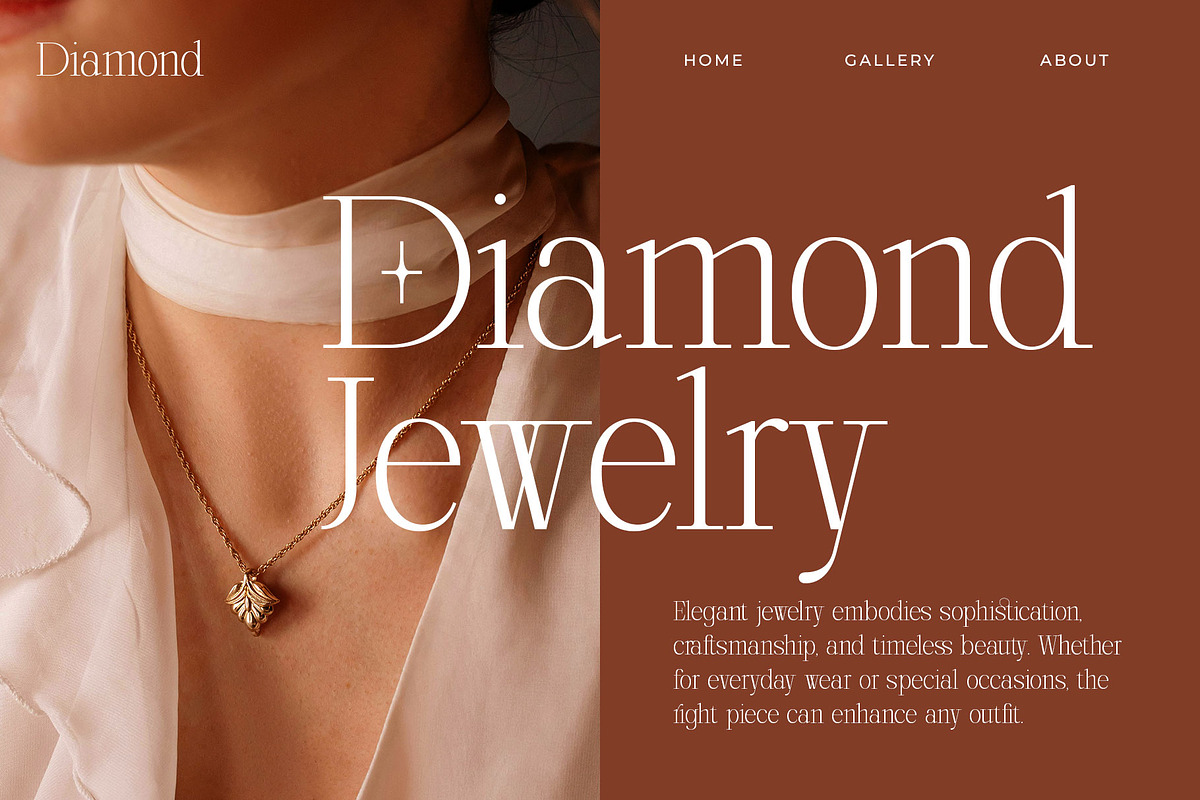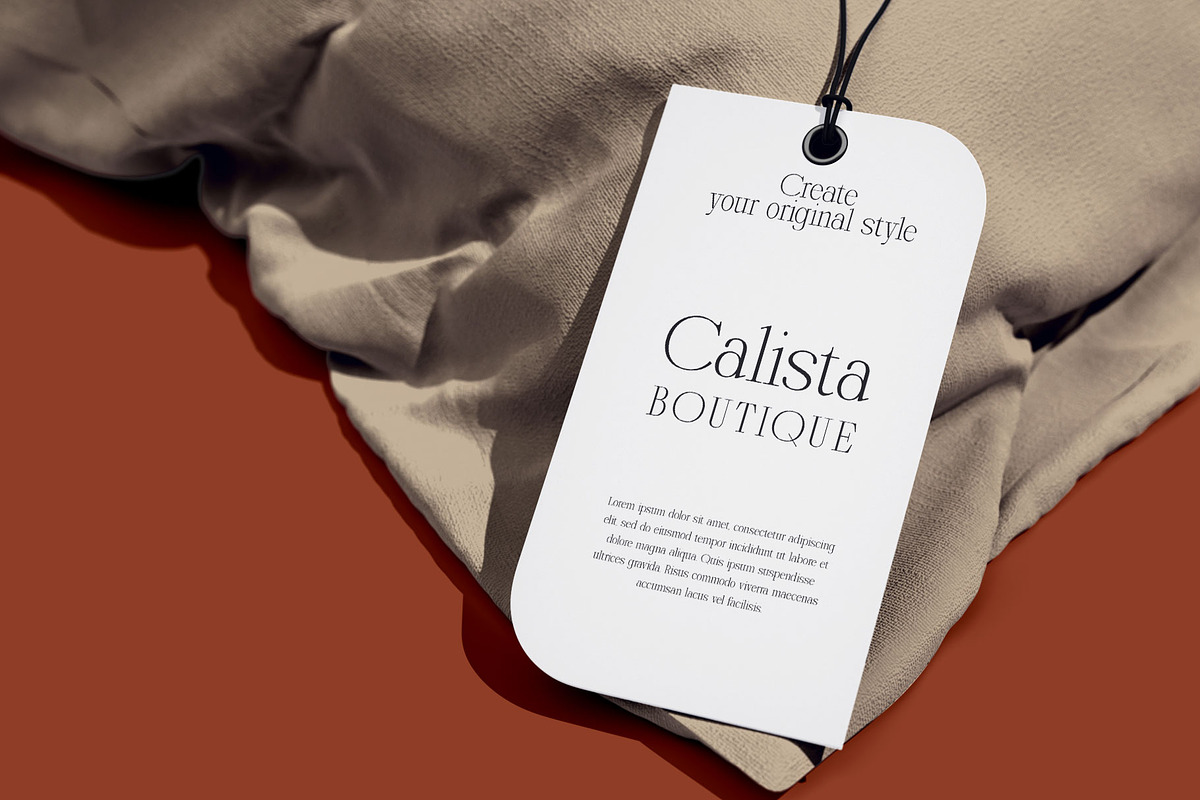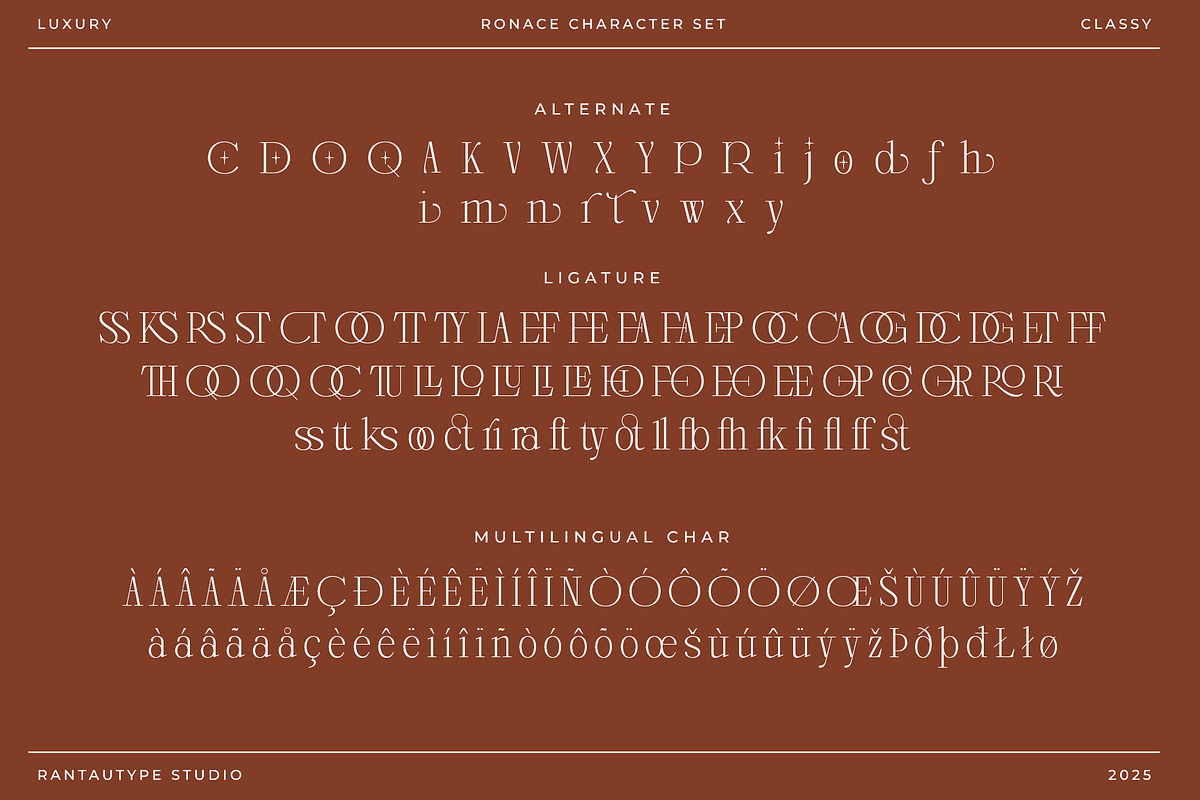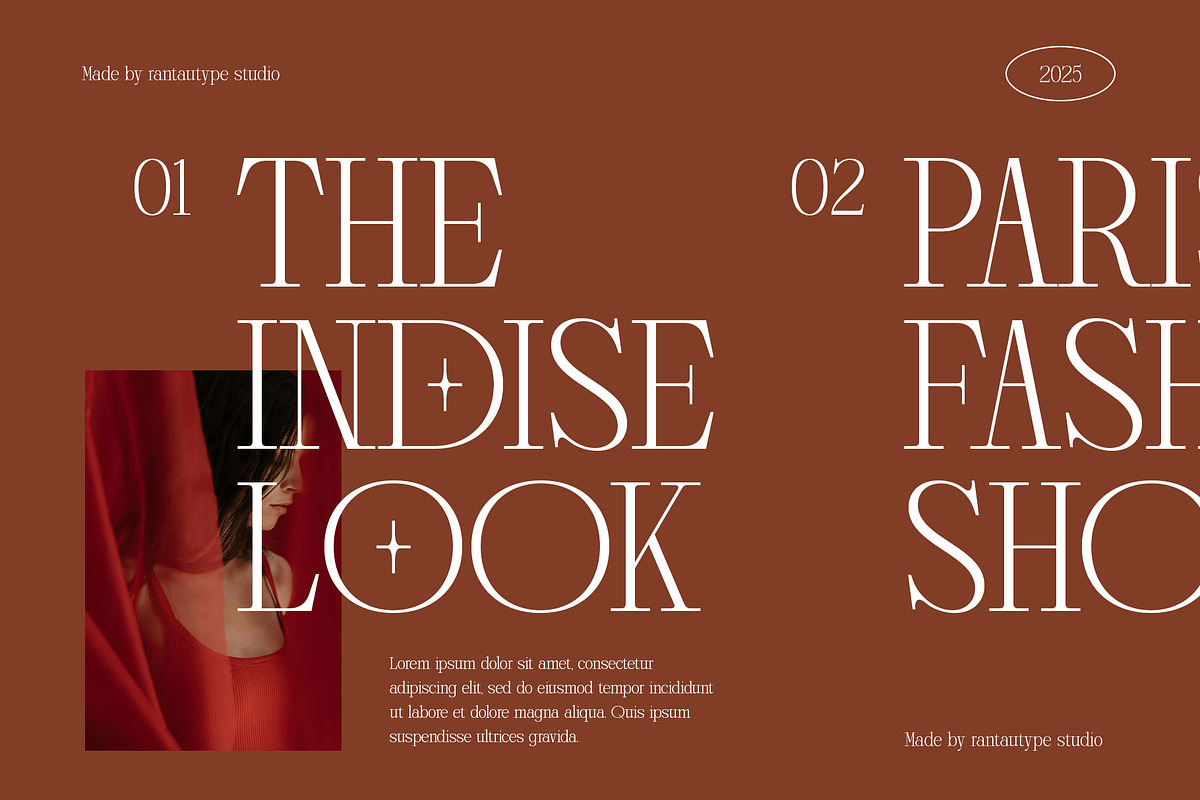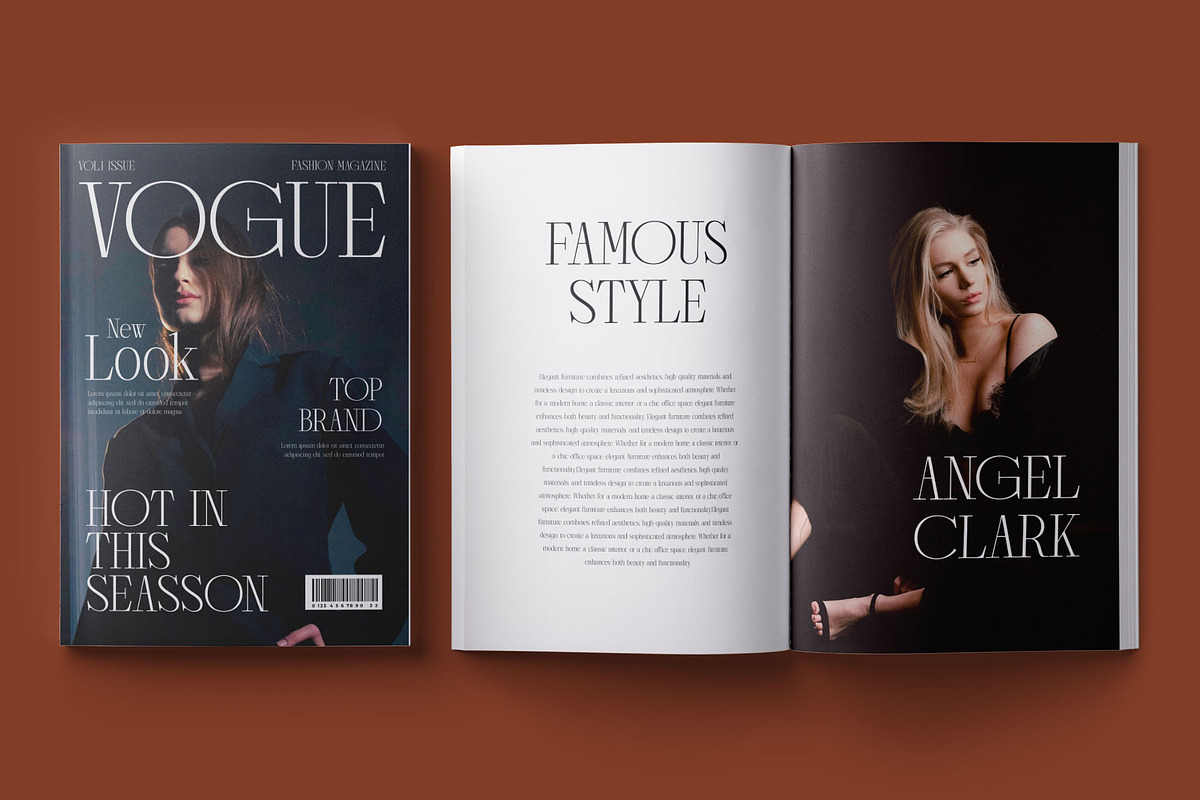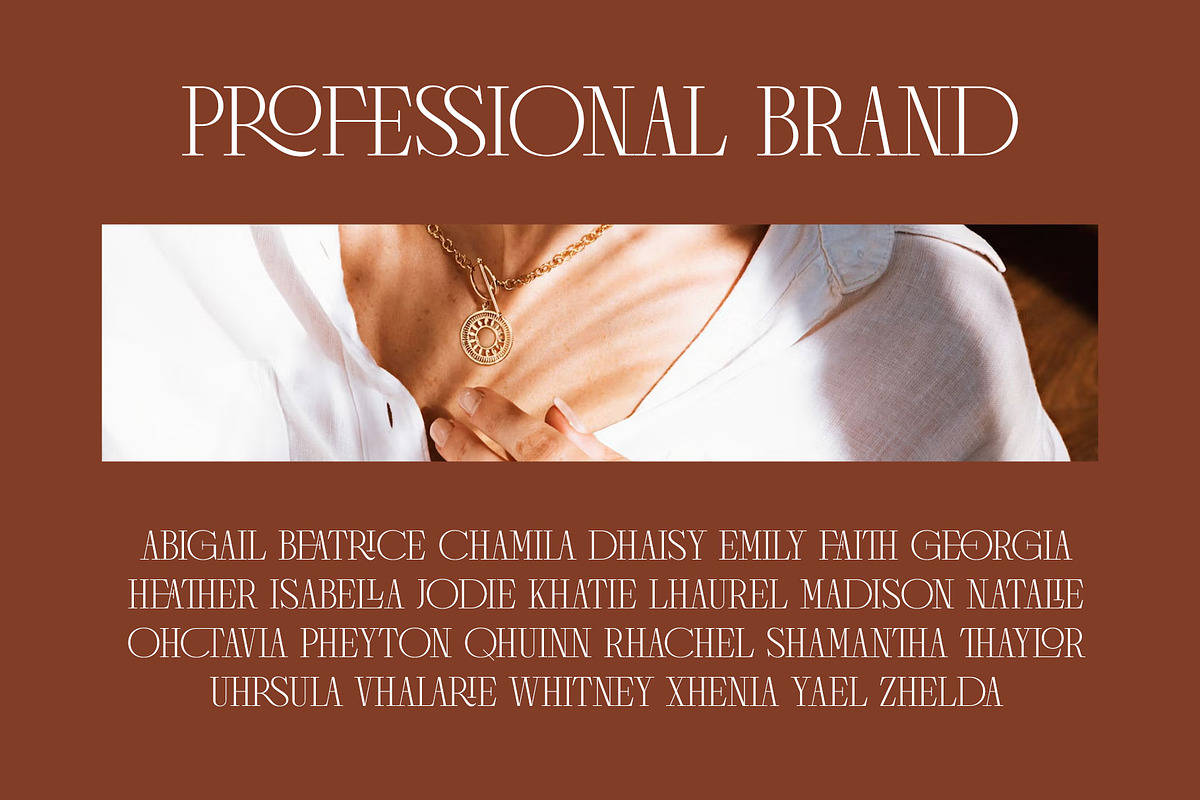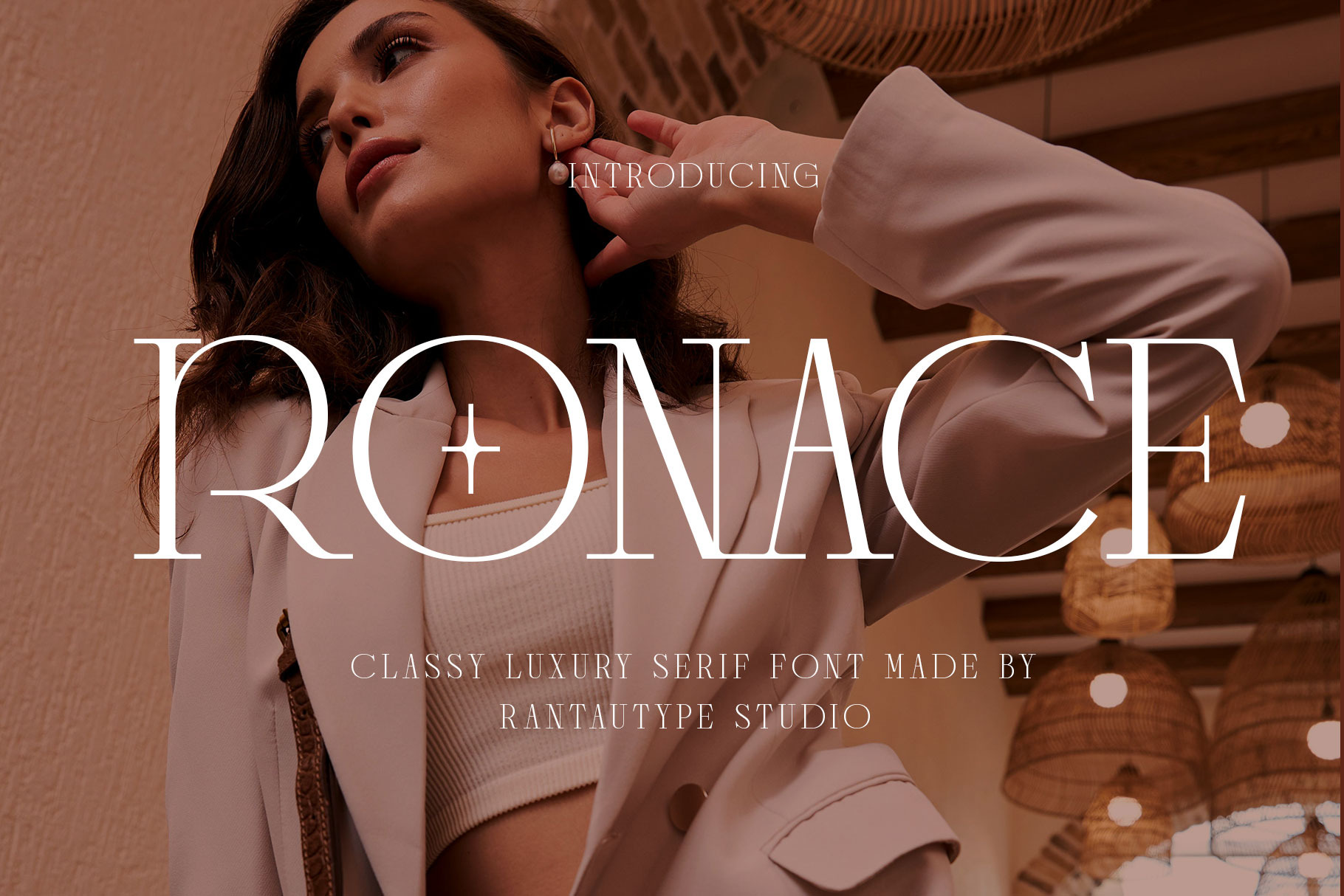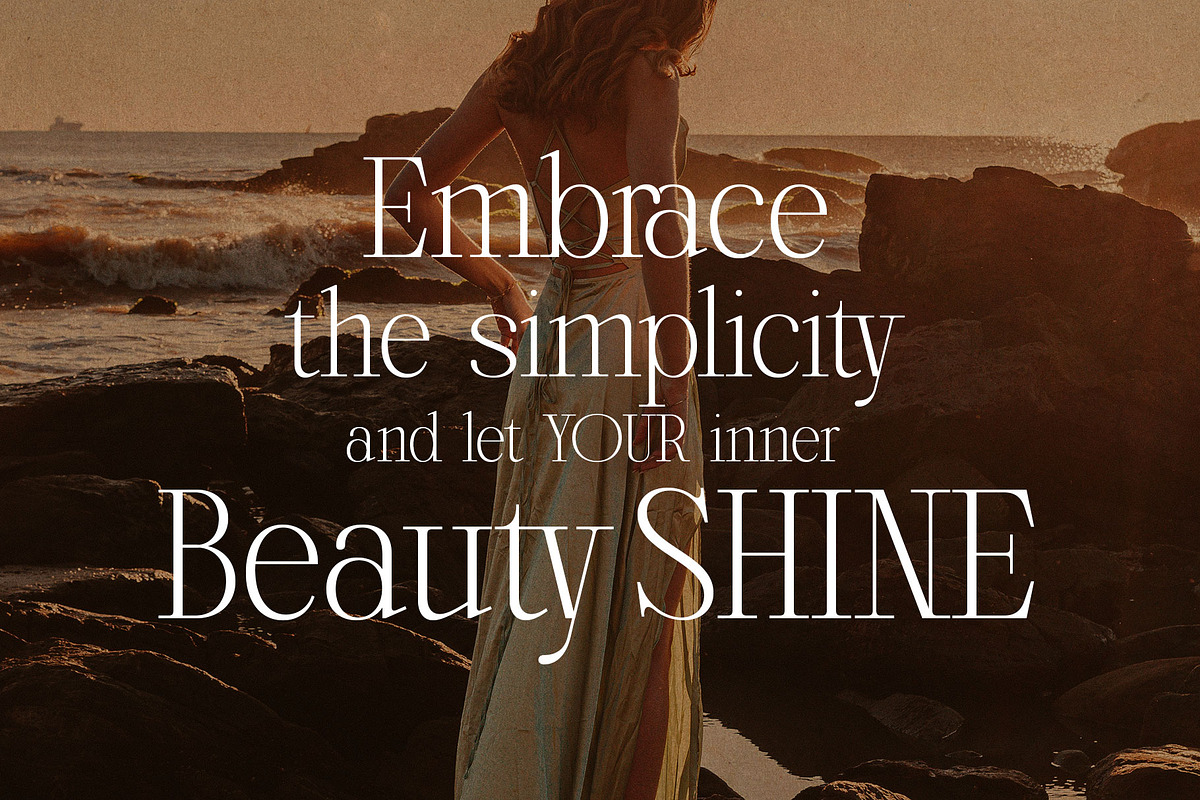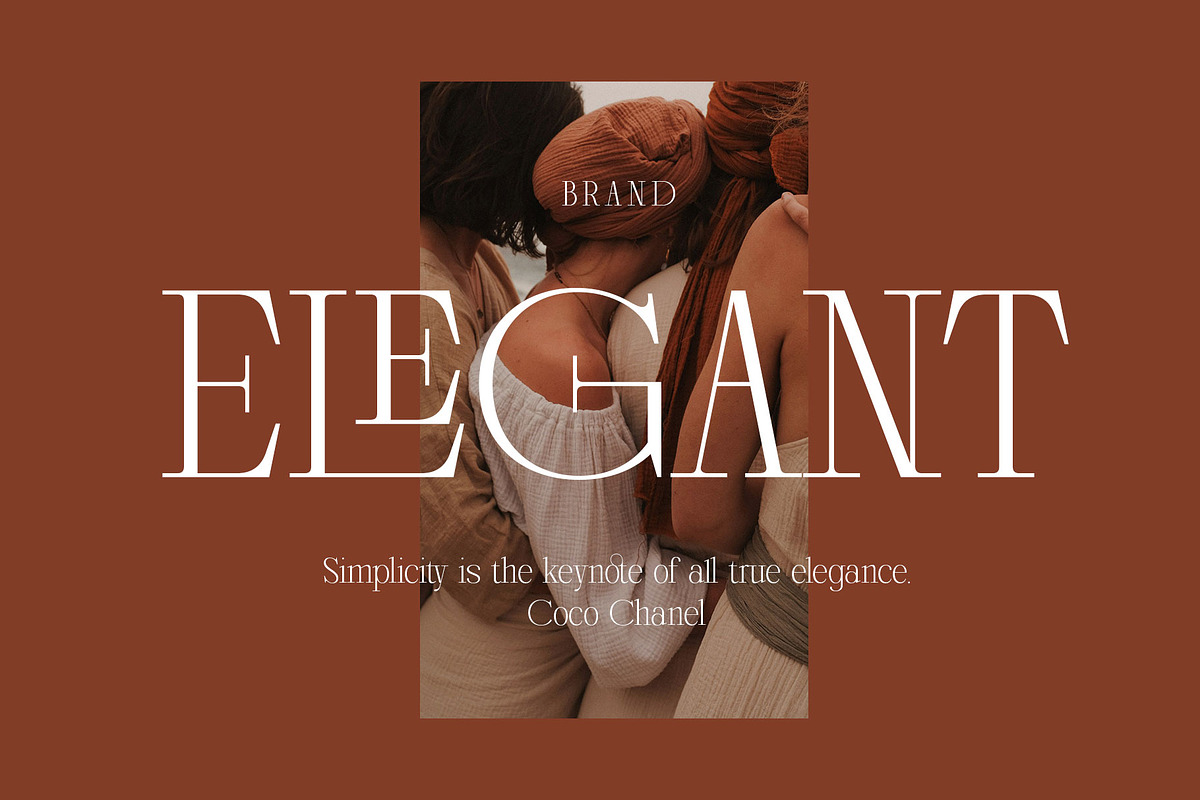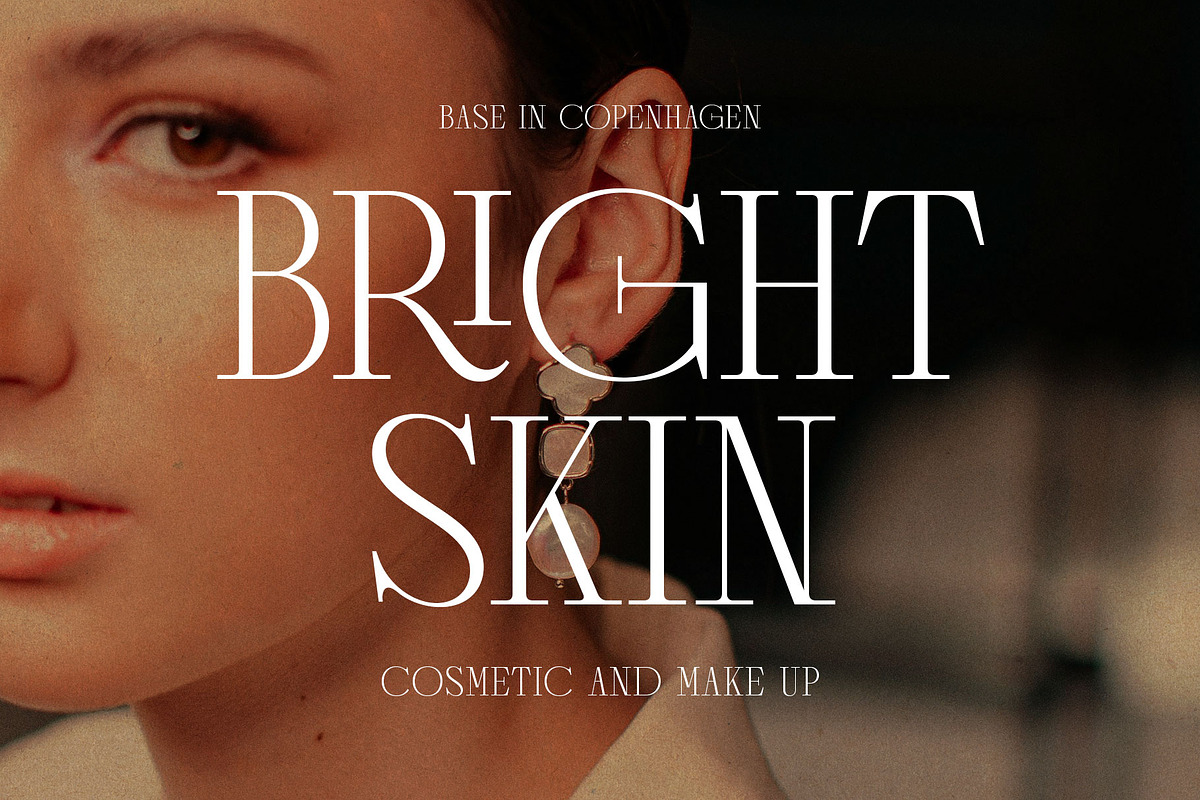
Ronace Classy Luxury Serif Font
Ronace is a classy and luxury serif font embodies elegance, sophistication, and a timeless appeal. Ronace come with minimalist but impactful details. Ronace is a perfectly choice for any creative endeavor, chic, lifestyle design such as logotype, advertisements, watermark on photography, stationery, branding project, display and magazine, invitation, corporate brand, product design, label, business project and many other project with luxury touch.
- Alternate and ligature
Fonts include Multilingual Character for: Afrikaans, Albanian, Asu, Basque, Bemba, Bena, Breton, Chiga, Cornish, Dutch, English, Estonian, Filipino, Finnish, Friulian, Galician, Gusii, Indonesian, Irish, Italian, Kabuverdianu, Kalenjin, Kinyarwanda, Luo, Luxembourgish, Luyia, Machame, North, Oromo, Portuguese, Quechua, Romansh, Rombo, Rundi, Rwa, Samburu, Sango, Sangu, Scottish, Gaelic, Sena, Shambala, Shona, Soga, Somali, Spanish, Swahili, Swedish, Swiss, German.